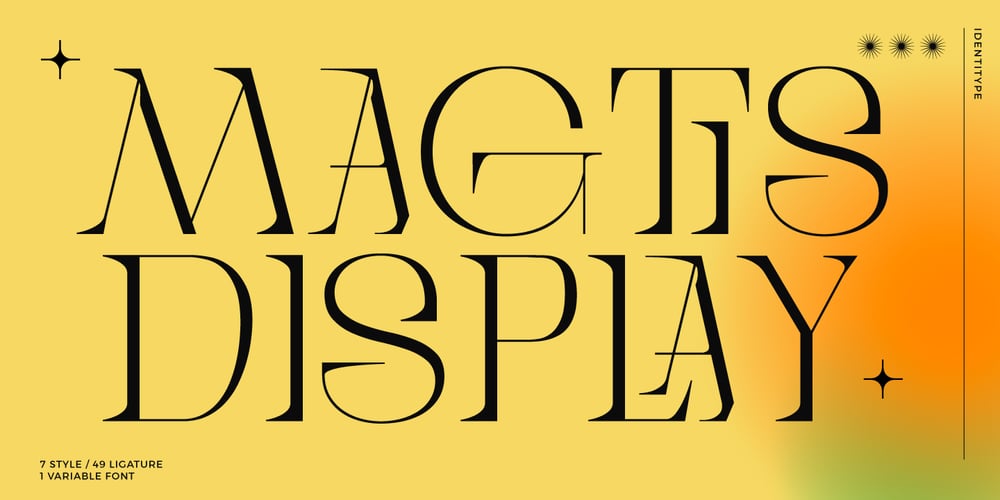
Magtis
Magtis font
Magtis Font Family was designed by Aulia Rahman, Hendra Maulia and published by Identitype Co. Magtis contains 9 styles and family package options. Magtis is a standout display font that is an ode to Contrast Serif typography in present day. It’s elaborate curves and unique shapes make it perfect for headings, logos & wedding invitations. Magtis is all class so if you want a stylish font that is guaranteed to draw the eye, then this is it!Magtis come with elegant style, strength and contrasts, with features an extended latin character set of 396 glyphs covering over 87 languages. Magtis is ready to be like a top model on the design catwalk, making your projects looking classic but contemporary, finely tuned but assertive, and elegant as the best luxury fashion.There Include : 7 Font Style 49 Ligature Extended Latin Opentype Feature Alternate Character Multilanguage